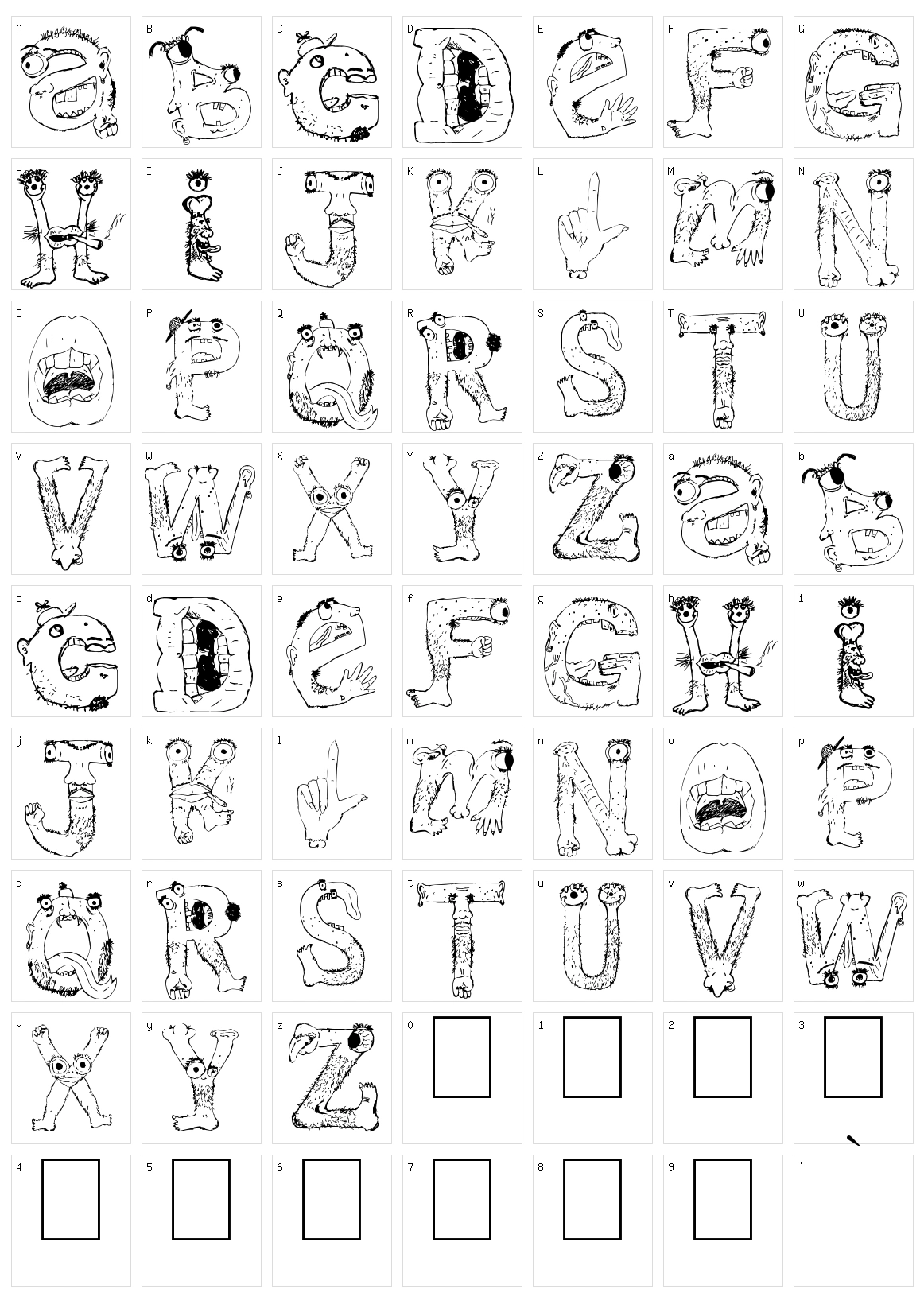
The free font Chi font is carefully designed by Chidiebere Udogwu, showcasing a thoughtful balance of creativity and usability and falls under the Halloween font style. When you download the ZIP file, it contains only 84.41 KB of font files, making it lightweight and quick to download. Please review the license details below to understand permitted usage and distribution rights. If license information is not available, we recommend using this font for personal projects only or contacting the author directly for commercial usage permissions.